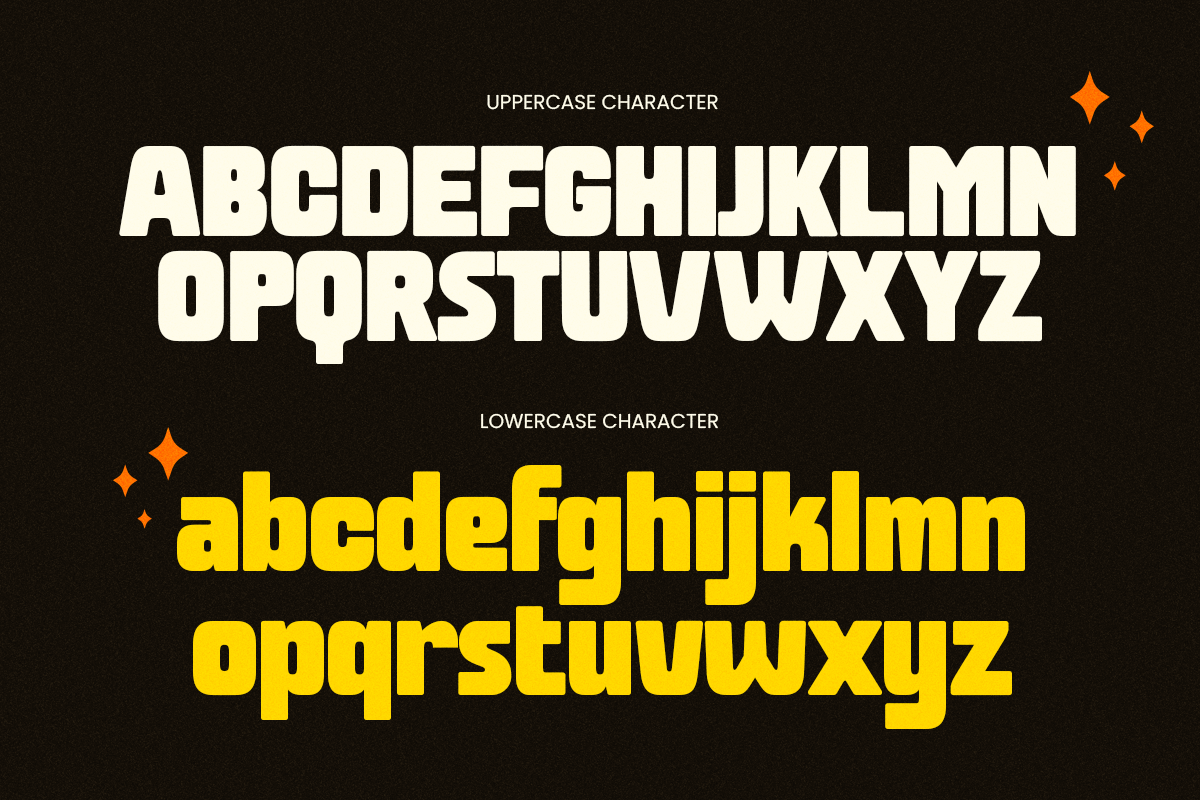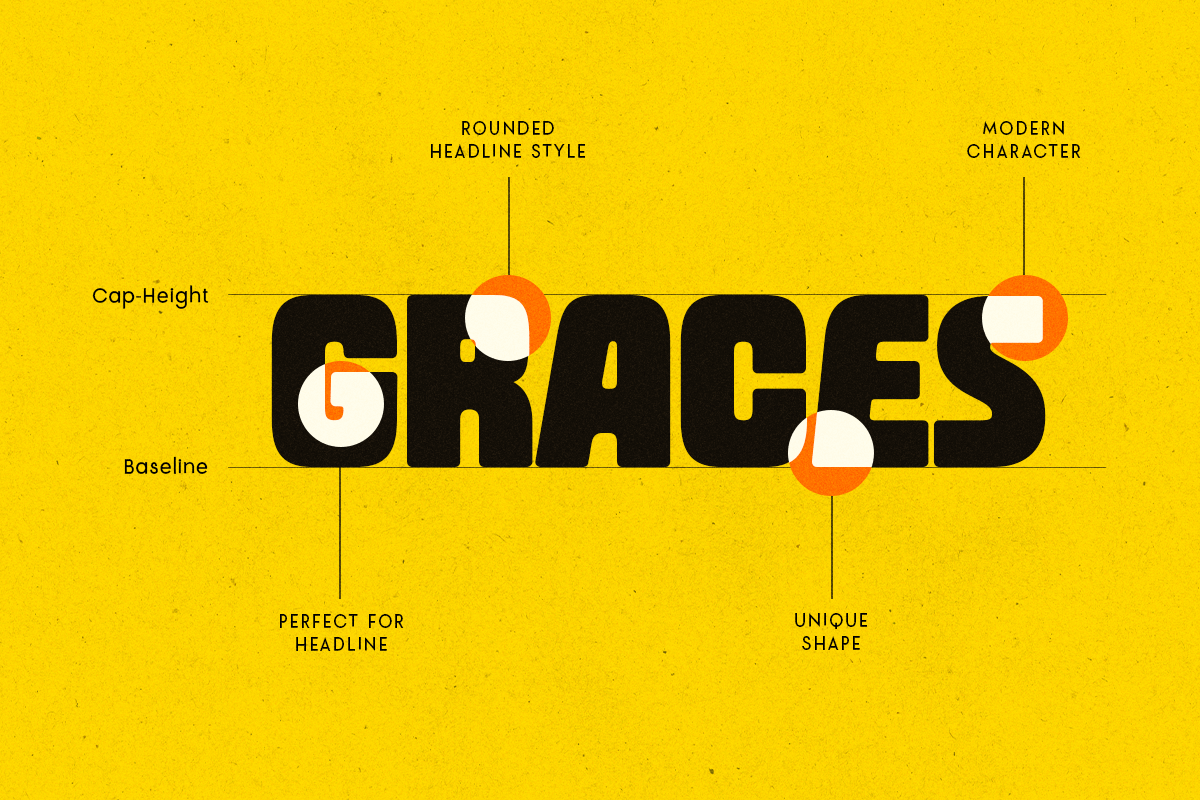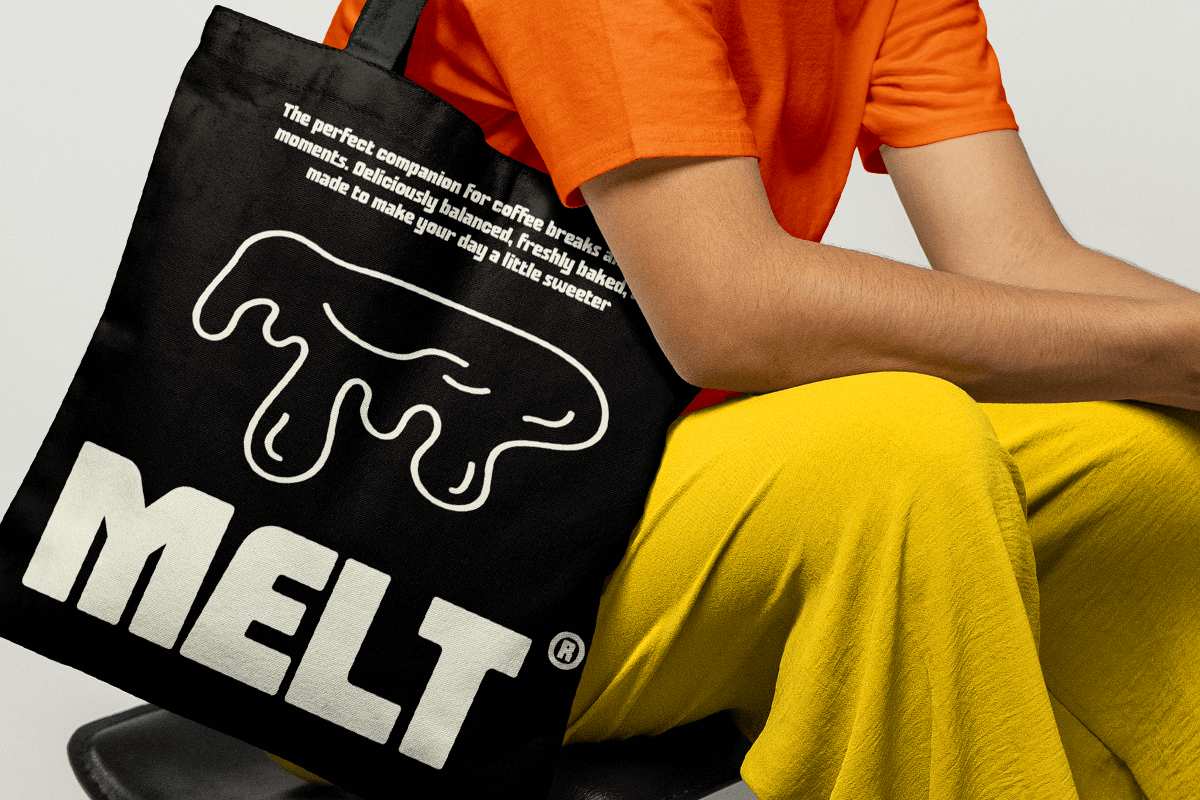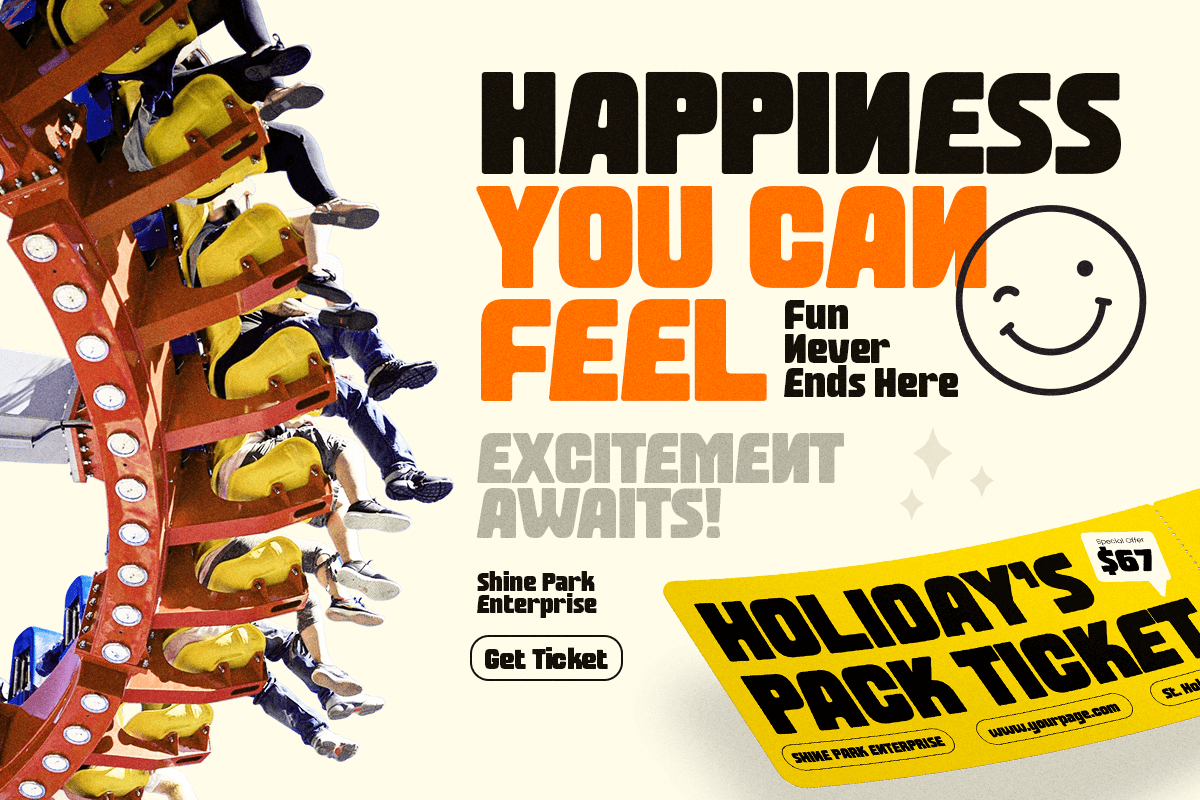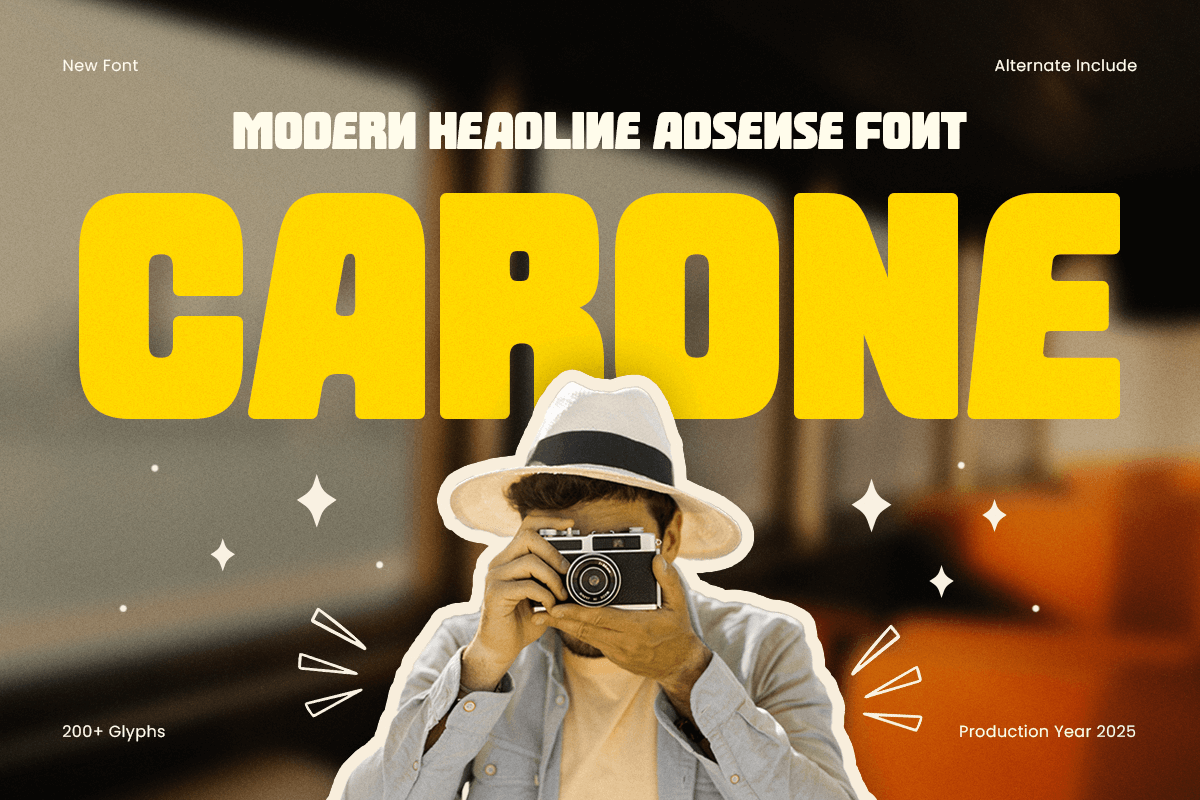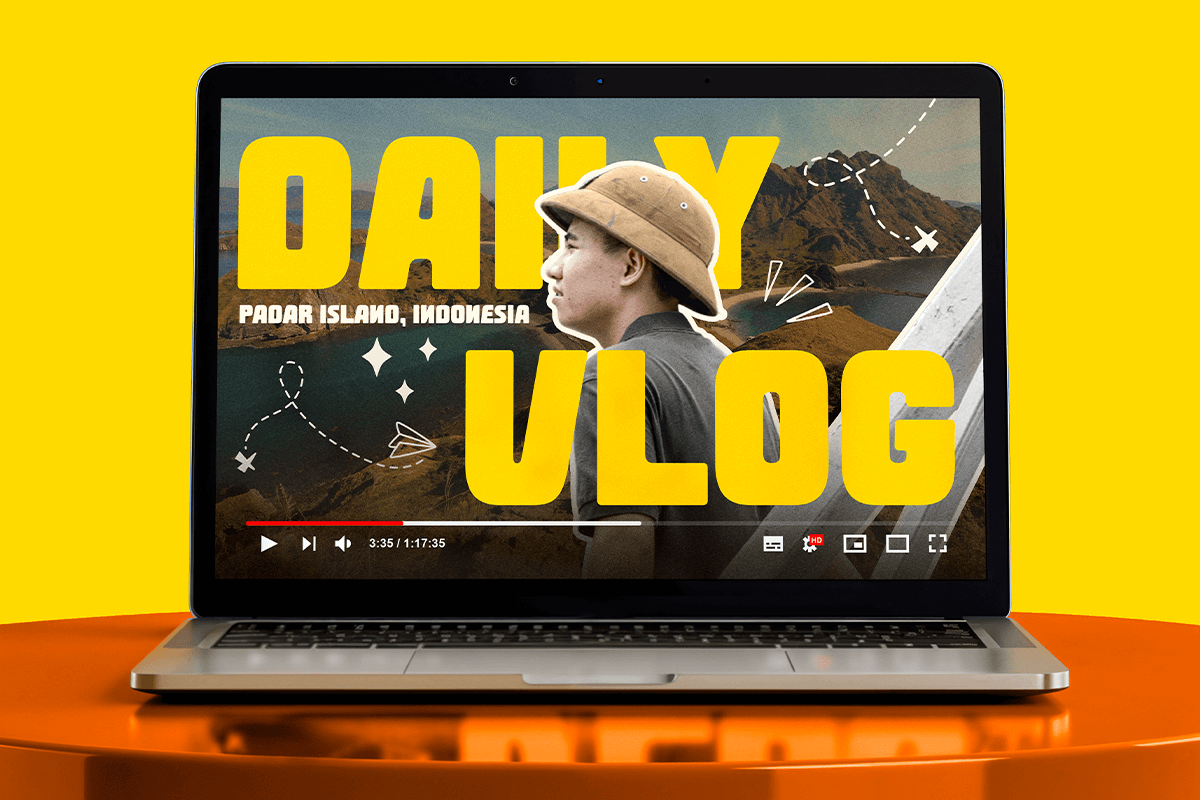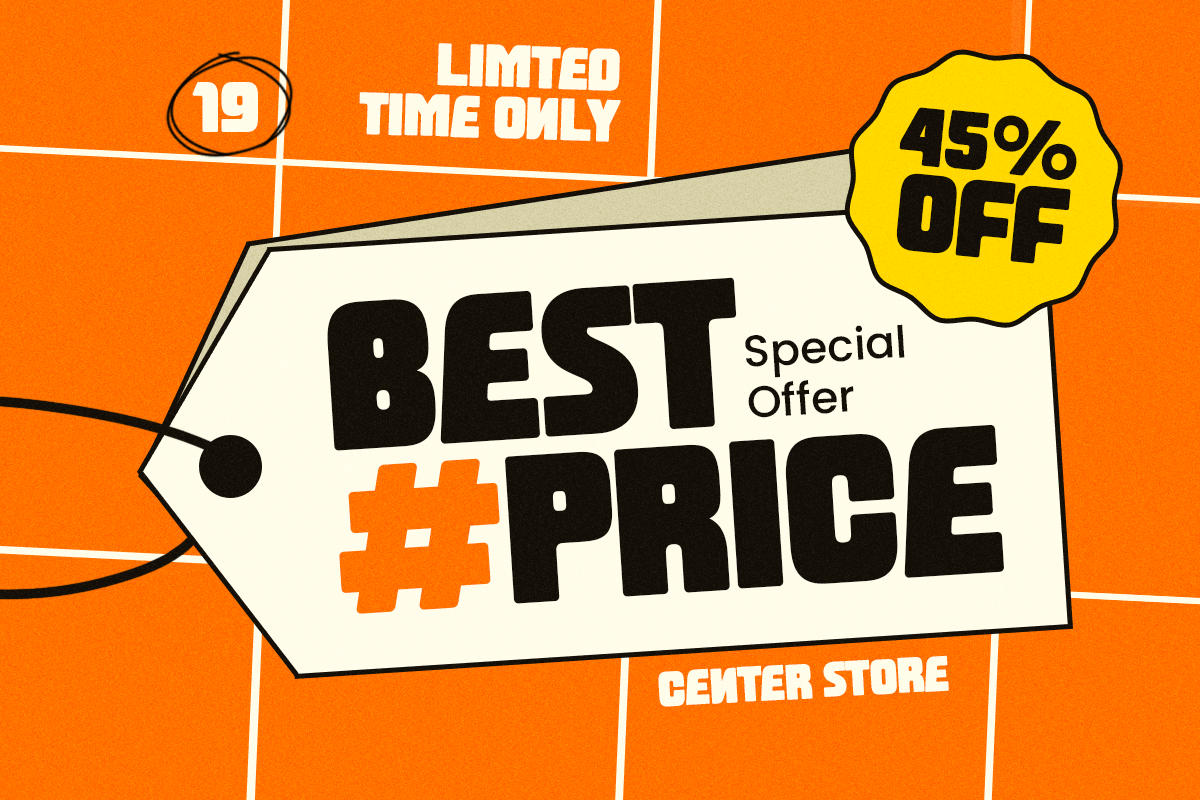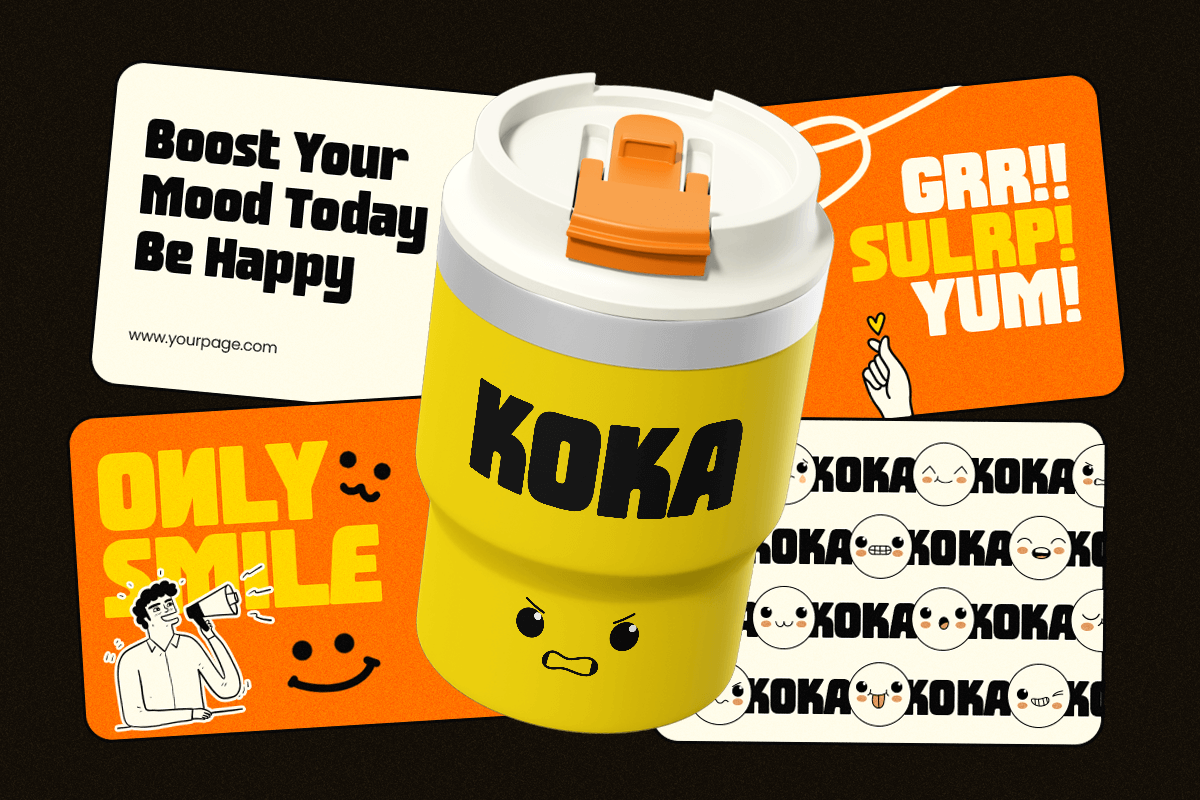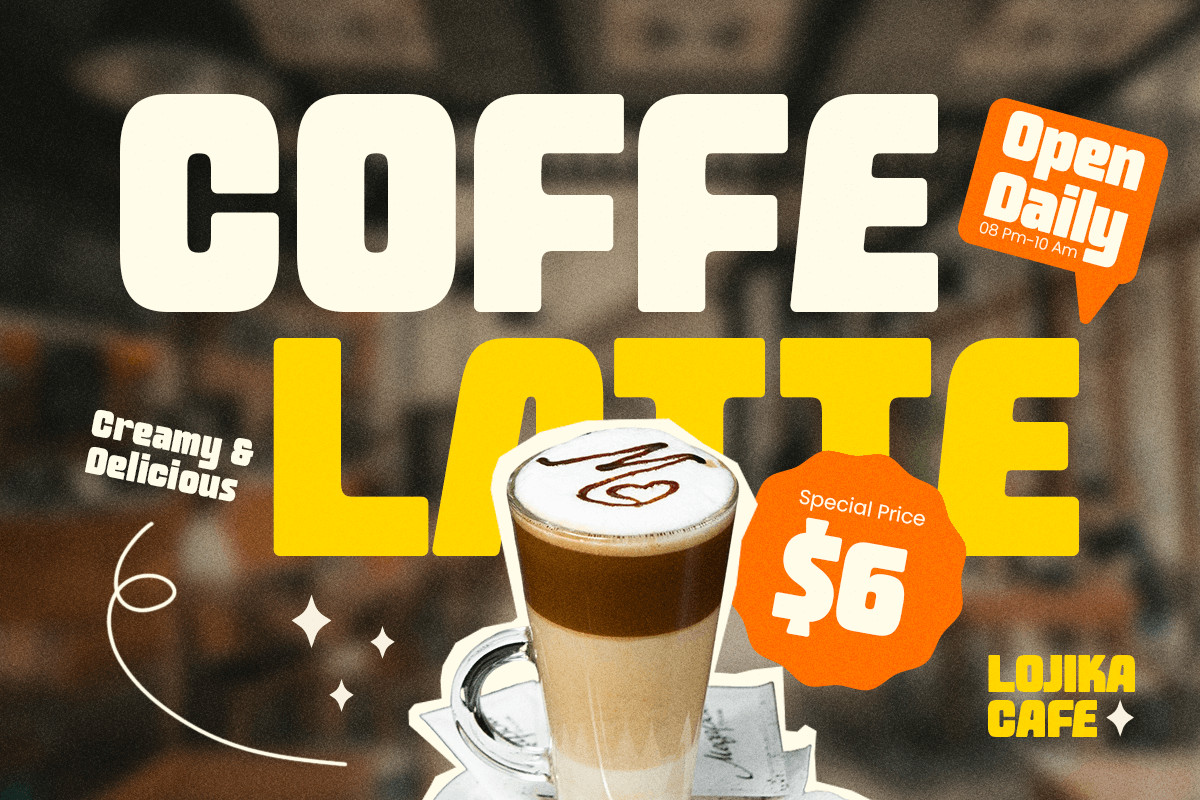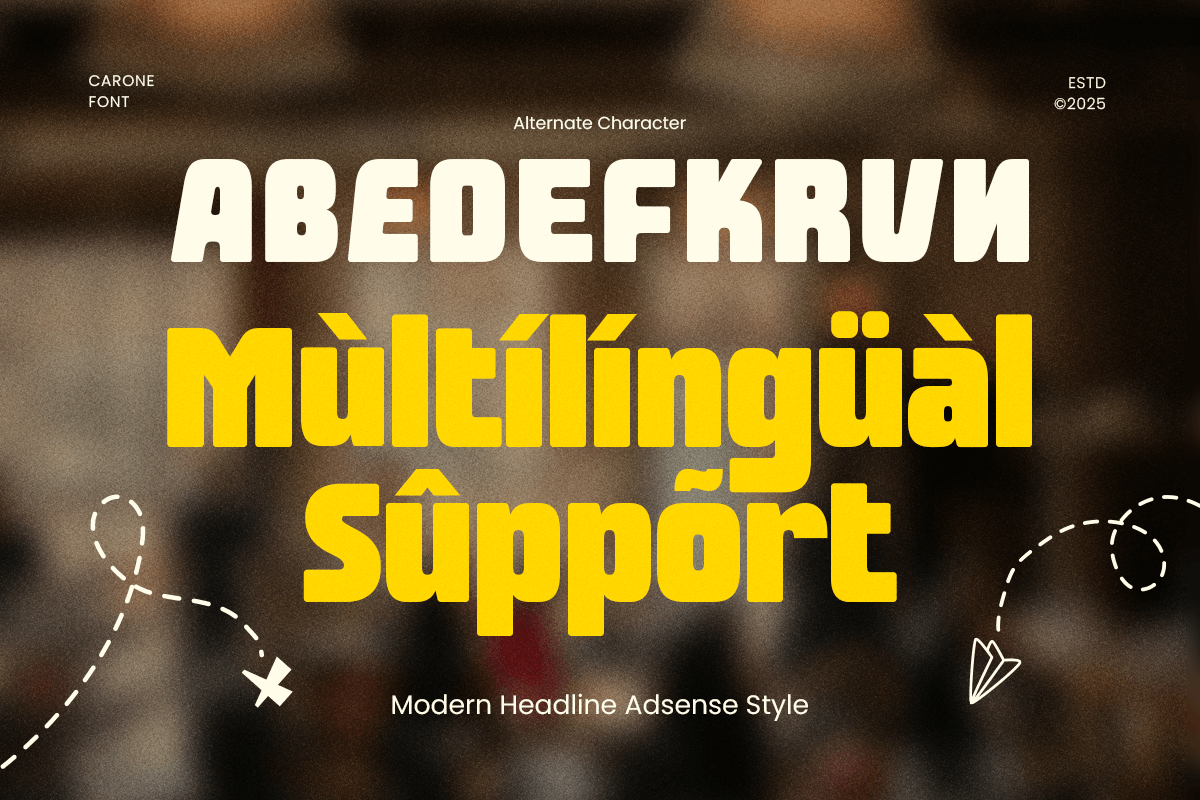
Carone - Modern Headline Bold Font
Carone – Modern Headline Bold Font
Carone is a clean and impactful display font designed specifically for headlines, ads, and high-visibility media. With its modern proportions and sharp clarity, Carone ensures every word stands out—perfect for advertising layouts, social media promotions, website banners, and editorial headlines.
Built to maximize readability and visual impact, Carone features strong letterforms, balanced spacing, and a polished modern aesthetic suitable for both digital and print ads. Whether you're designing commercial content, marketing campaigns, or bold attention-grabbing titles, Carone delivers a professional and contemporary presence.
Carone – Modern Headline Bold Font Features:
\* Bold modern display style optimized for ads and headlines
\* Perfect for Bold banners, marketing visuals, and social media posts
\* Includes uppercase, lowercase, numerals, and punctuation
\* Smooth kerning and high readability in all sizes
\* Ideal for advertising, editorial design, and digital branding
Enhance your promotional content with Carone – the modern headline font crafted for maximum clarity, impact, and advertising performance.